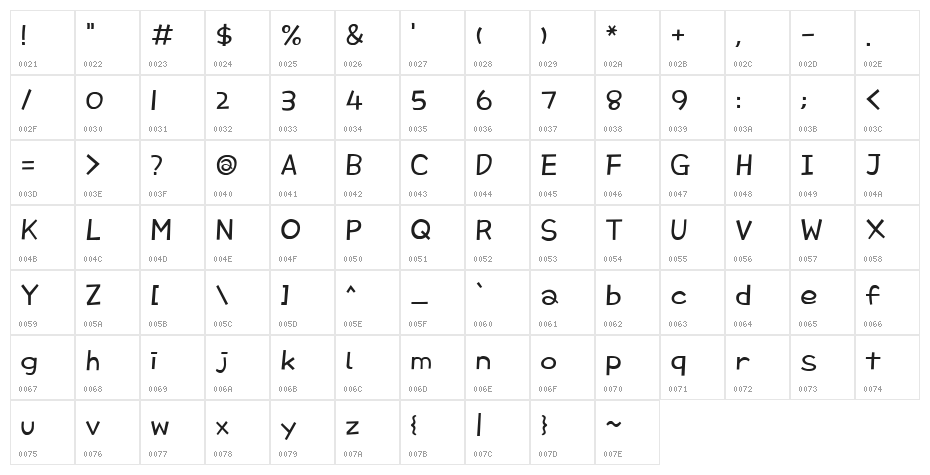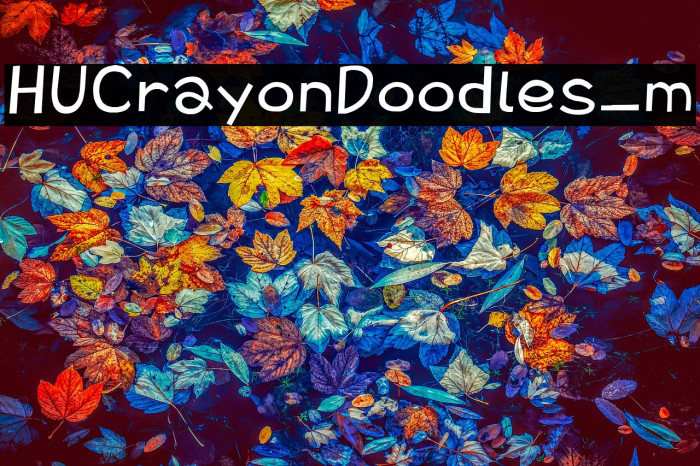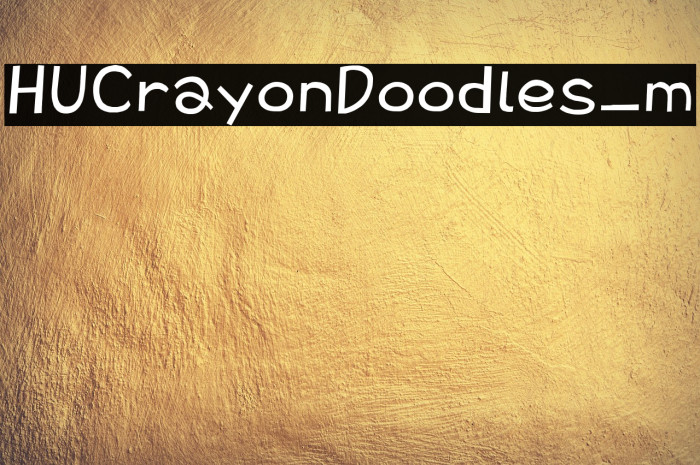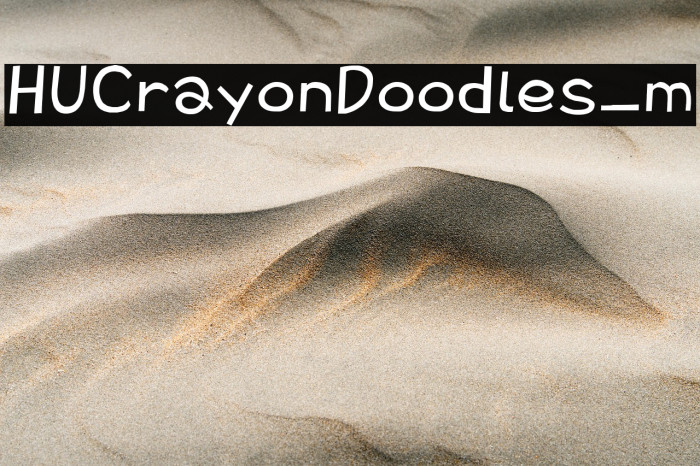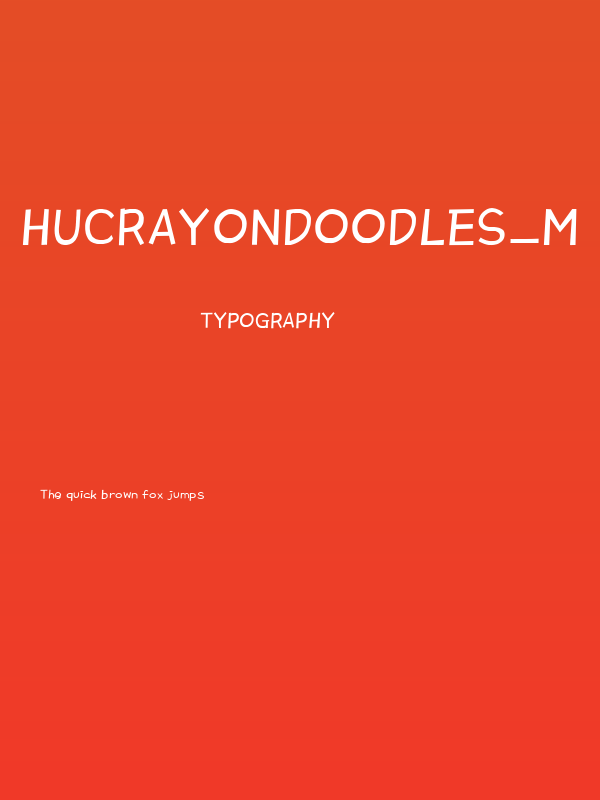
HUCrayonDoodles_m Font
HUCrayonDoodles_m Description
This playful and informal font features a hand-drawn style that mimics the look of crayon doodles. The letters are slightly irregular, giving it a whimsical and childlike appearance. The uppercase and lowercase letters maintain a consistent style, with rounded edges and a casual, friendly feel. Numbers and special characters are included, matching the overall aesthetic. The font's unique charm makes it suitable for projects that require a fun and approachable look.
| Overall Style | Playful, Informal |
| Use Case | Headlines, Posters, Branding |
| Proposed Projects | Ideal for children's books, educational materials, playful branding, and creative posters. |